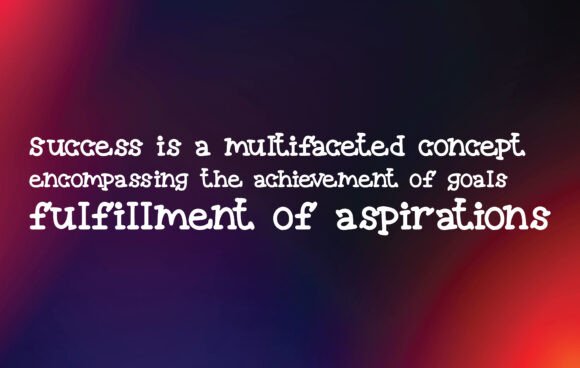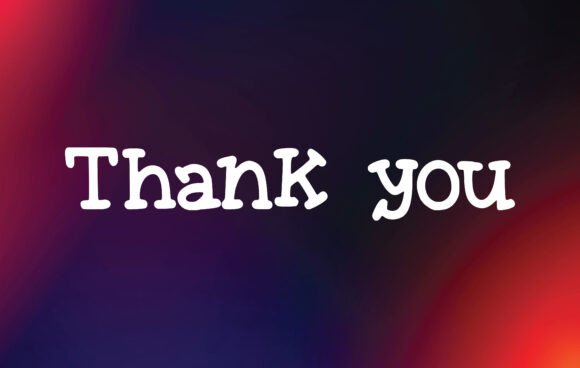
Introducing Constanza Font: Elevate Your Creative Projects with Elegance
Are you on the hunt for a font that can add a touch of sophistication and beauty to your creative projects? Look no further than Constanza Font. This lovely and beautiful handwritten font has the potential to take your ideas to new heights, making it the perfect choice for designers, crafters, and anyone looking to add a personal touch to their work.
The Beauty of Constanza Font
Constanza Font is a stunning example of handwritten typography, boasting a unique and elegant style that is sure to capture attention. Its beautiful, flowing lines and curves make it an ideal choice for creating eye-catching logos, branding materials, and quotes. Whether you’re working on a personal project or a client’s, Constanza Font is sure to bring a touch of class and sophistication to your work.
One of the best things about Constanza Font is its versatility. Its elegant and refined style makes it suitable for a wide range of creative projects, from:
- Logos and branding materials: Create a lasting impression with a custom logo or branding materials that showcase your unique style.
- Quotes and posters: Add a touch of inspiration to your quotes and posters with a font that’s both beautiful and easy to read.
- Stationery and invitations: Elevate your stationery and invitations with a font that’s perfect for formal and informal events.
- Digital and print media: Use Constanza Font in your digital and print media, such as brochures, flyers, and social media graphics.
Why Choose Constanza Font?
So, what sets Constanza Font apart from other fonts? Here are just a few reasons why it’s a top choice for designers and crafters:
- Unique and elegant style: Constanza Font boasts a one-of-a-kind, handwritten style that’s sure to make your projects stand out.
- High-quality design: This font is carefully crafted to ensure that it’s both beautiful and functional.
- Easy to read: Despite its elegant style, Constanza Font is easy to read, making it perfect for body text and captions.
- Versatile: Use Constanza Font in a variety of creative projects, from logos and branding materials to quotes and posters.
Tips for Using Constanza Font
To get the most out of Constanza Font, here are a few tips to keep in mind:
- Pair it with complementary fonts: Combine Constanza Font with other fonts to create a unique and visually appealing typography.
- Experiment with colors and textures: Add depth and interest to your projects by experimenting with different colors and textures.
- Use it consistently: Use Constanza Font consistently throughout your project to create a cohesive and professional look.
In conclusion, Constanza Font is a beautiful and elegant handwritten font that’s perfect for designers, crafters, and anyone looking to add a touch of sophistication to their creative projects. With its unique style, high-quality design, and versatility, it’s an excellent choice for a wide range of applications. Whether you’re creating logos, branding materials, quotes, or posters, Constanza Font is sure to elevate your work and help you achieve your creative goals.